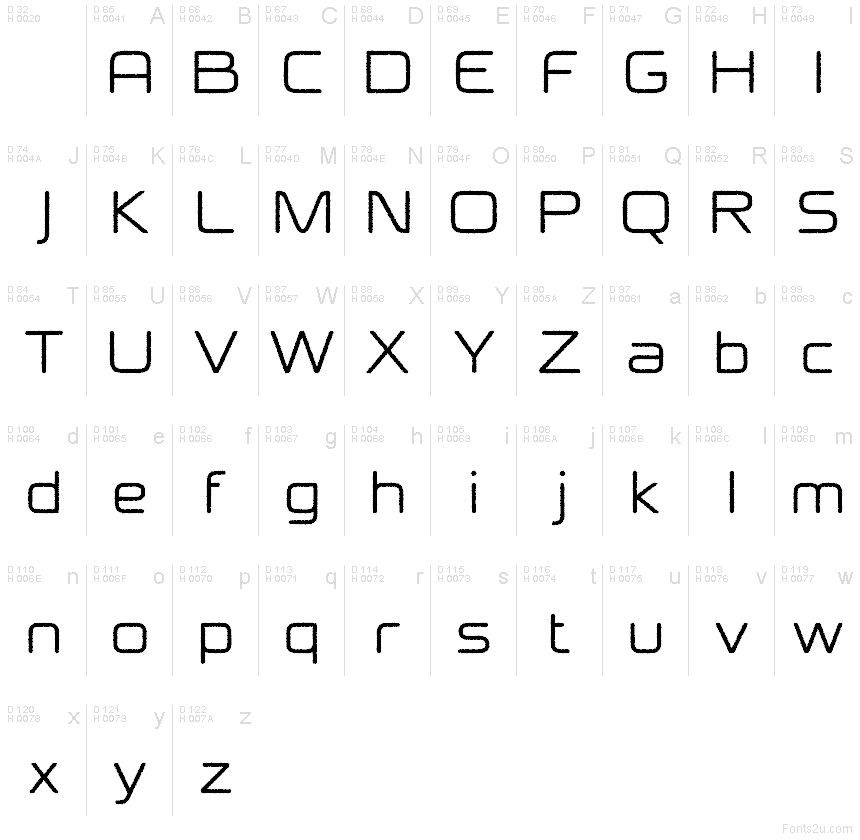
MegatransRoundedRough-Regular Demo
Megatrans Rounded Rough font from Craft Supply Co. brings a unique style of an eroded expanded display into the modern design space. Every character conveys a casual and futuristic vibe with its smooth, streamlined curves while still maintaining a retro look due to the rounded fonts. A logo, a branding visual, or any other typography project can benefit from this free-to-download font.
Megatrans Rounded Rough Demo